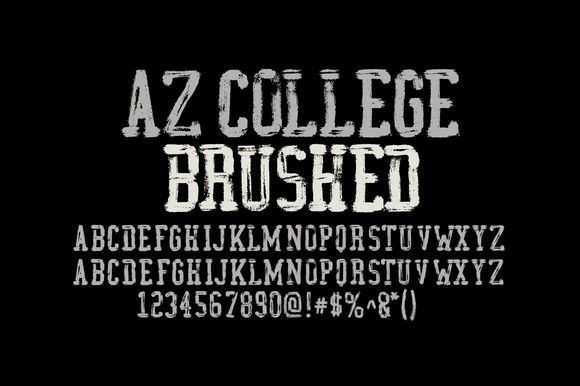
The AZ College Brushed Font: A Beautifully Brushed Addition to Your Design Arsenal
I’ll never forget the time I was working on a project for a client who wanted a font that captured the essence of a collegiate vibe, complete with a rough, brushed look. I scoured the internet, tried out countless fonts, but nothing seemed to fit the bill. That was until I stumbled upon the AZ College Brushed Font. ✨ It was love at first sight! The perfect combination of a wavy, rough painted look and typical collegiate shirt designs. In this article, I’ll share my experience with this beautiful brush font, its features, and how to make the most out of it in various design platforms.
- 💯 The AZ College Brushed Font has a unique, hand-brushed feel that’s perfect for adding a personal touch to your designs.
- 🎨 The font comes with a range of OpenType features, including glyphs and stylistic alternates, giving you plenty of creative options.
While the AZ College Brushed Font is an excellent addition to any design library, there are a few things to keep in mind. 🤔
- ⚠️ Some of the characters, especially the lowercase letters, can be a bit tricky to read at smaller font sizes. Be sure to test it out before finalizing your design.
- ⚠️ The font may not be the best choice for body text or long-form content, as it can be a bit challenging to read.
The AZ College Brushed Font was inspired by a combination of Abercrombie & Fitch’s wavy shirt designs and typical collegiate shirt designs. The creator wanted to capture the essence of a rough, hand-brushed look while maintaining a level of sophistication and elegance. 💡
| Font Name | AZ College Brushed Font |
| Author | Artistofdesign |
Q: Is the AZ College Brushed Font suitable for body text or long-form content?
A: While the AZ College Brushed Font is a beautiful addition to any design, it may not be the best choice for body text or long-form content, as it can be a bit challenging to read. 📖